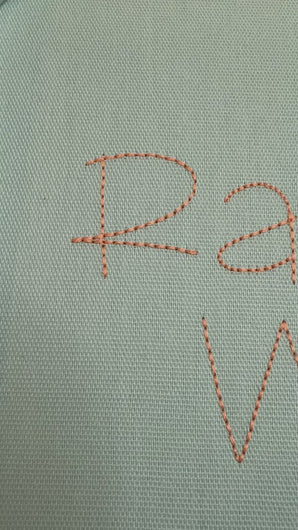
Rainy Winter Embroidery Font | Bean Stitch | BX, PES + 9 Formats | Handwritten Machine Embroidery
Rainy Winter is a handwritten-style bean stitch machine embroidery font for use with embroidery machines and embroidery software. This is a digital design file, not a physical item.
Every letter is stitched as a single bean-stitch outline, so it reads like a fine hand-drawn pen line on fabric instead of a solid filled shape.
Each size is hand-digitized, not auto-digitized, so it stitches cleanly with the right density at every scale.
- Upper and lower case A-Z
- Numbers 0-9
- 10 punctuation marks
- 7 sizes (0.75", 1", 1.5", 2", 2.5", 3", 3.5"), bean stitch